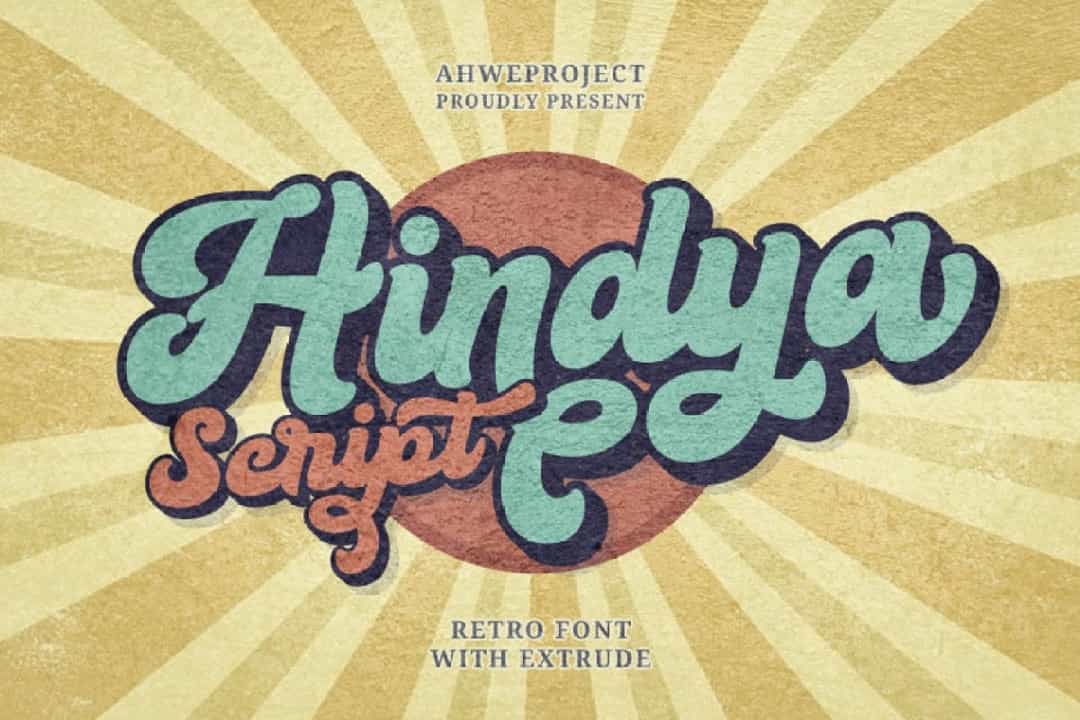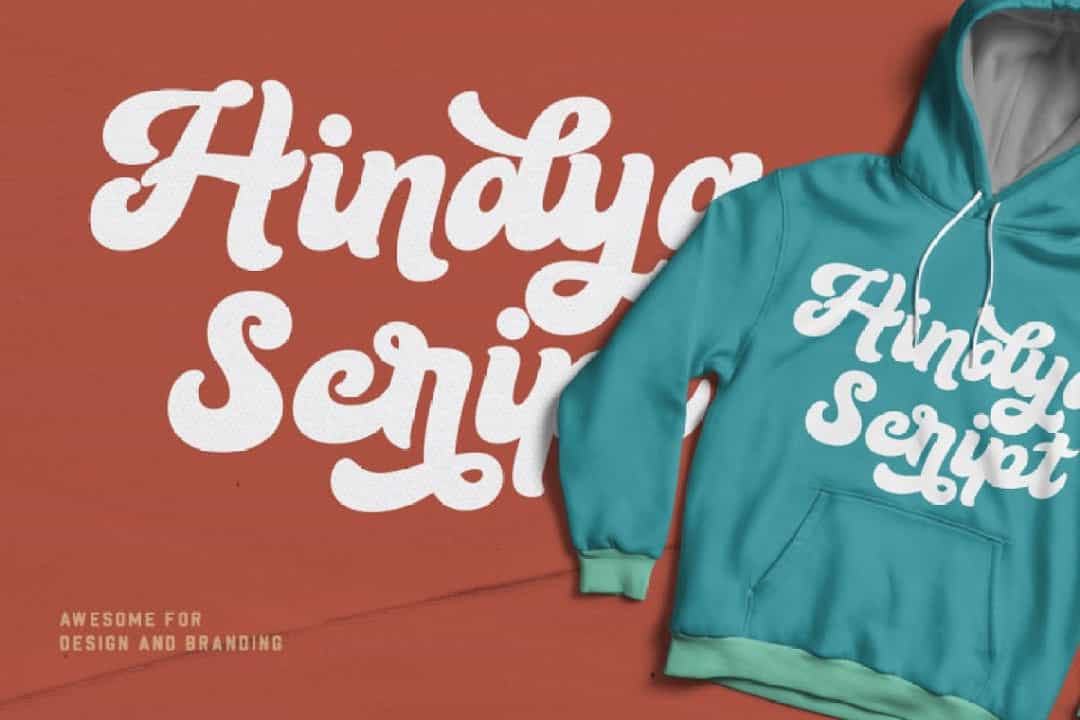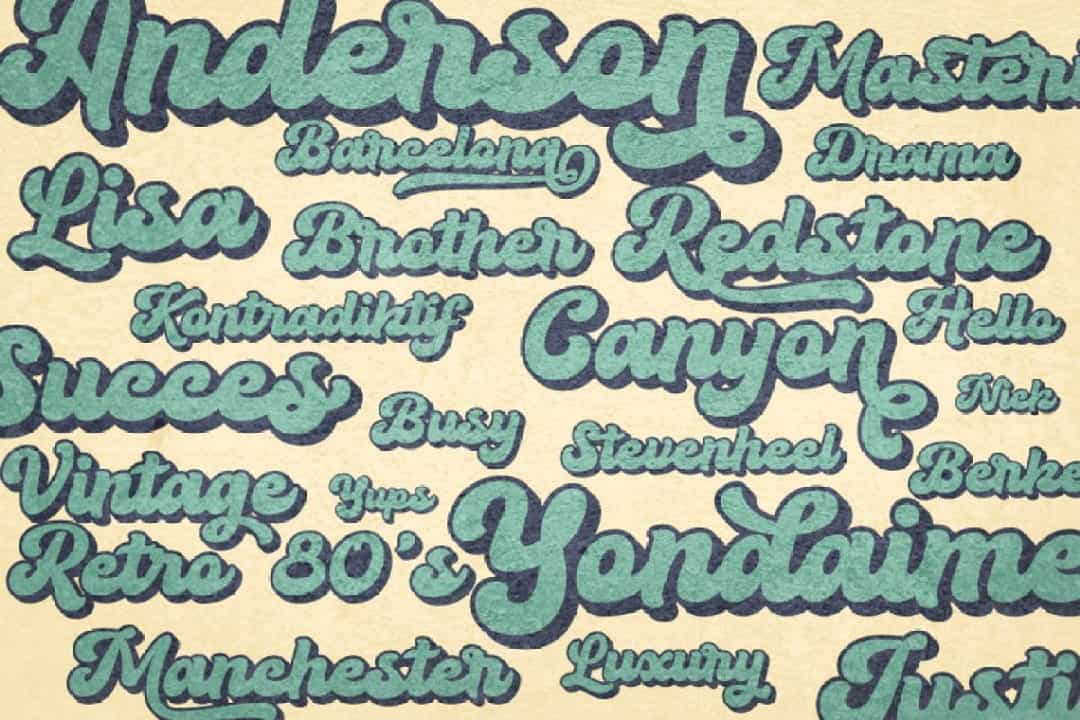
Hindya is a retro-styled script font. It exudes power, energy and confidence and will add an air of nostalgia to any layout you use it in. Plus, Hindya comes PUA encoded so you can use all characters and swashes easily!